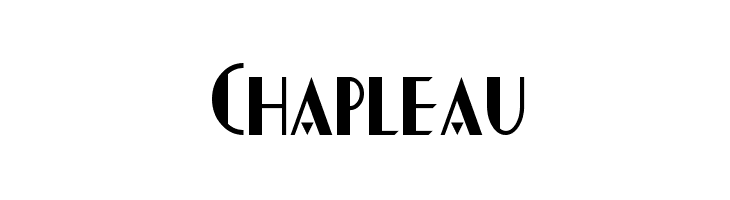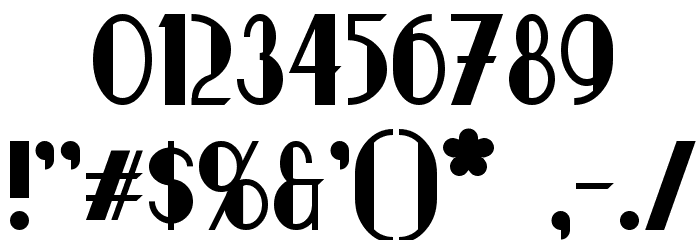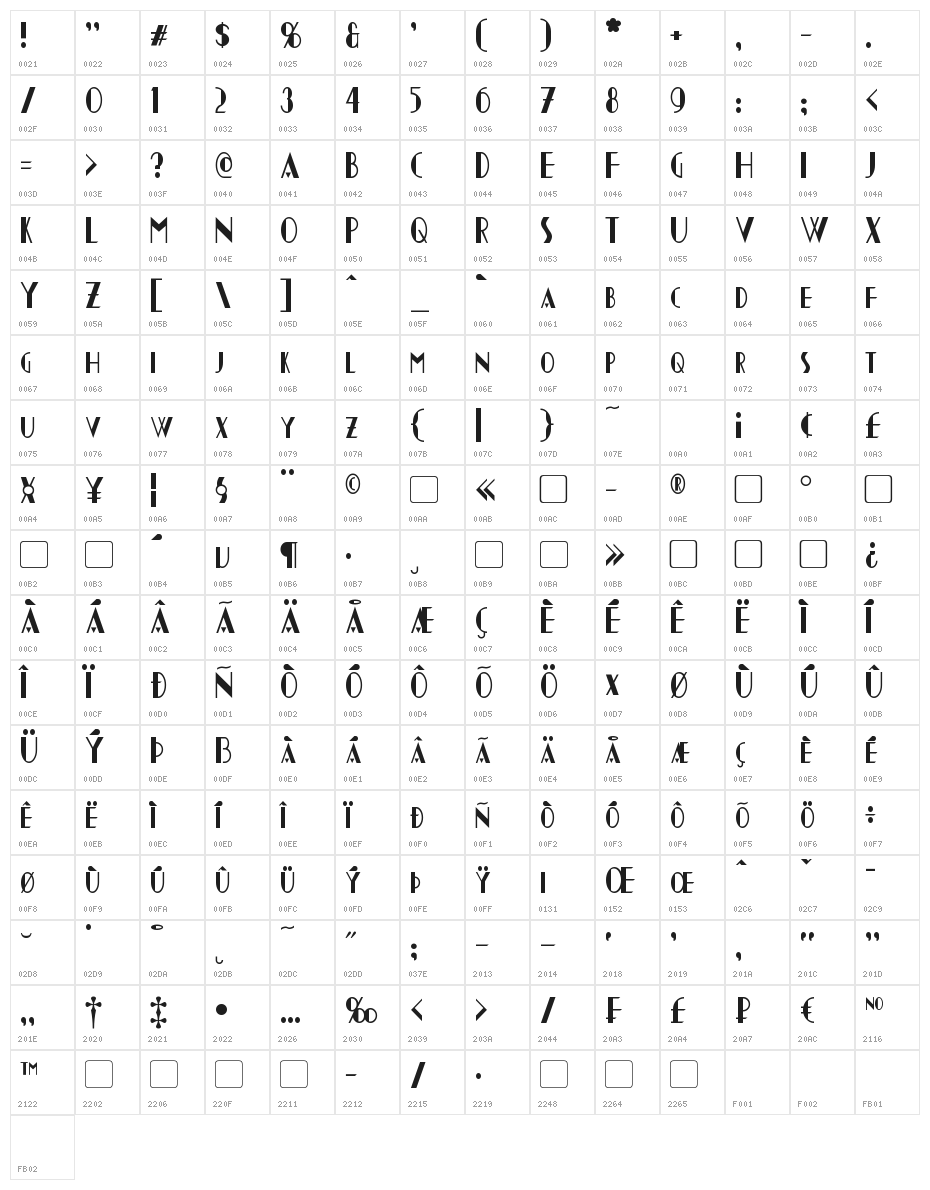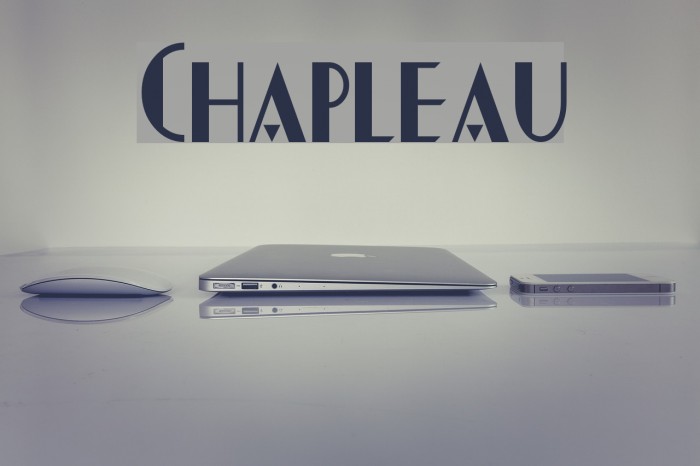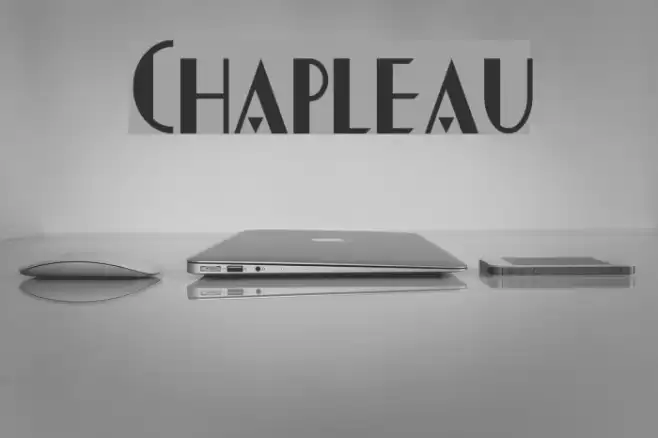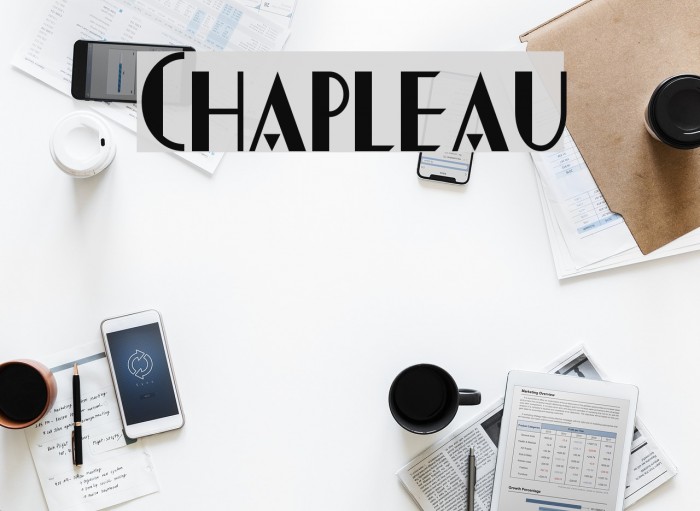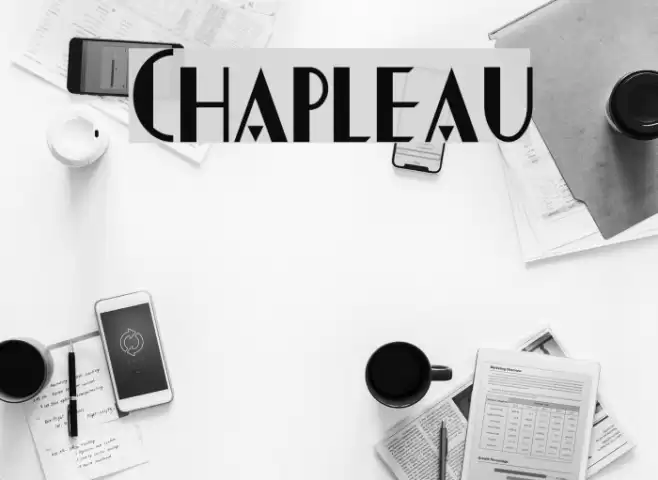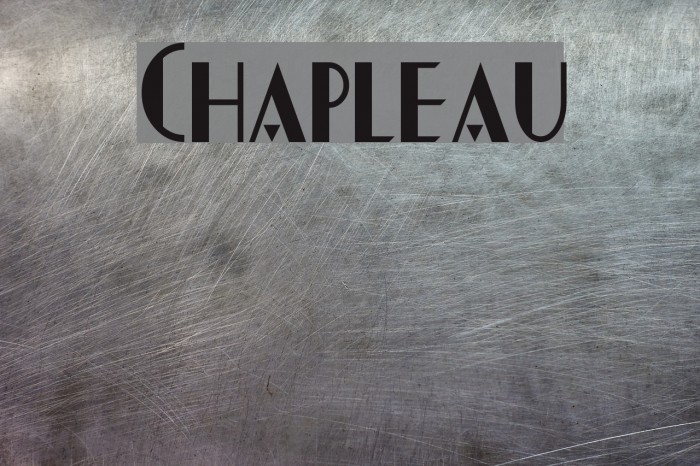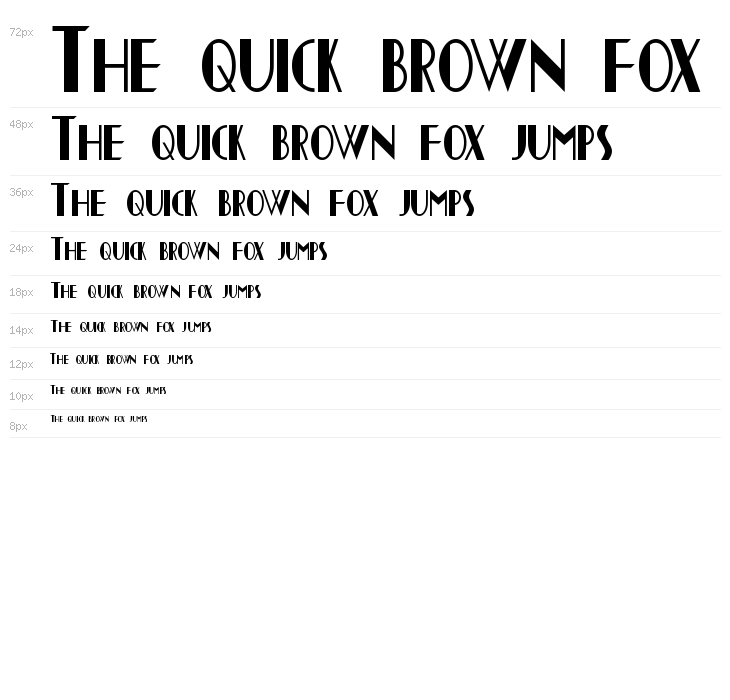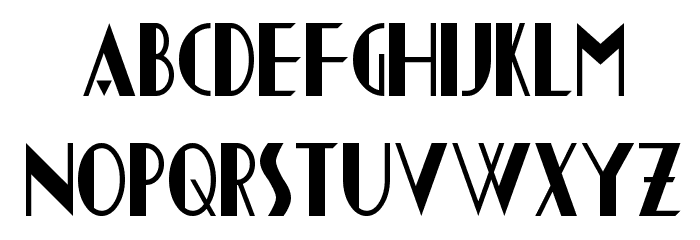
Chapleau Font
Chapleau Description
This font features a bold and striking design with a geometric flair. The uppercase letters are characterized by sharp angles and a consistent stroke width, creating a sense of uniformity and strength. The lowercase letters maintain the geometric theme, offering a unique and modern twist with their angular shapes. The numerals are bold and easy to read, complementing the overall design. Special characters are designed with the same attention to detail, ensuring they blend seamlessly with the rest of the font. This typeface is perfect for making a statement with its bold presence and modern aesthetic.